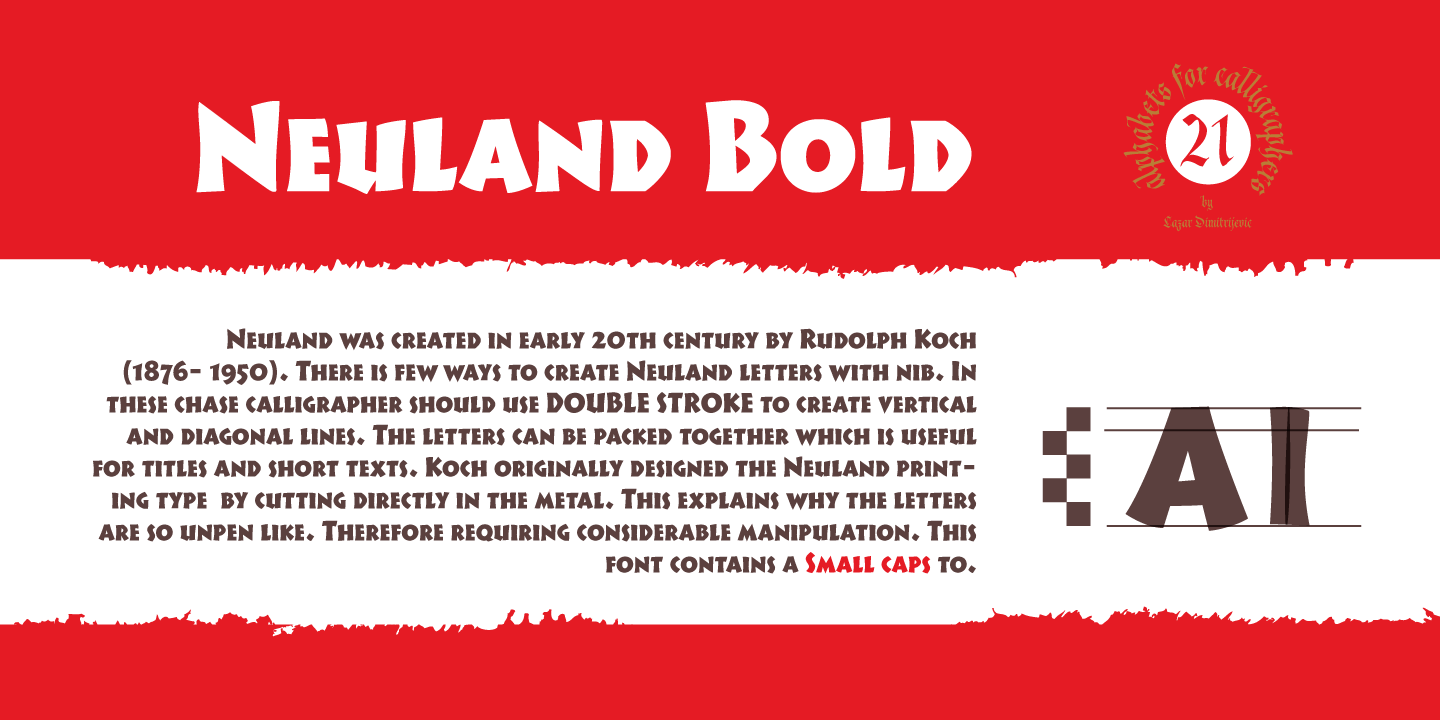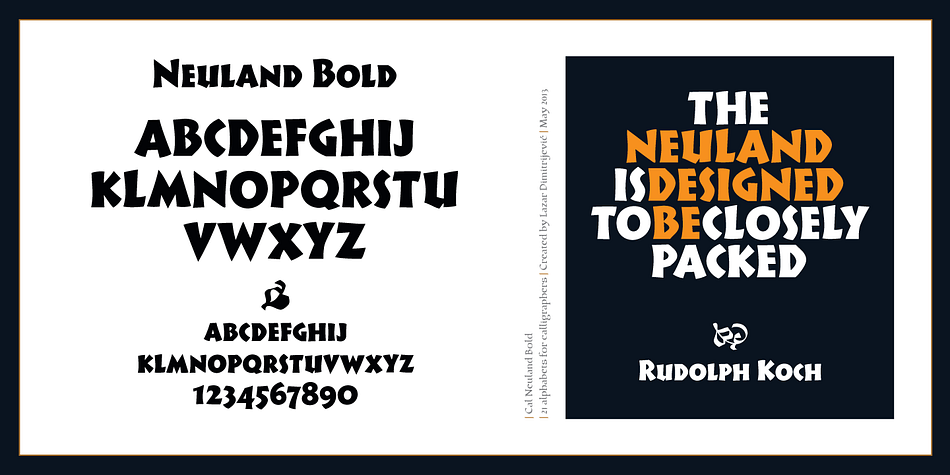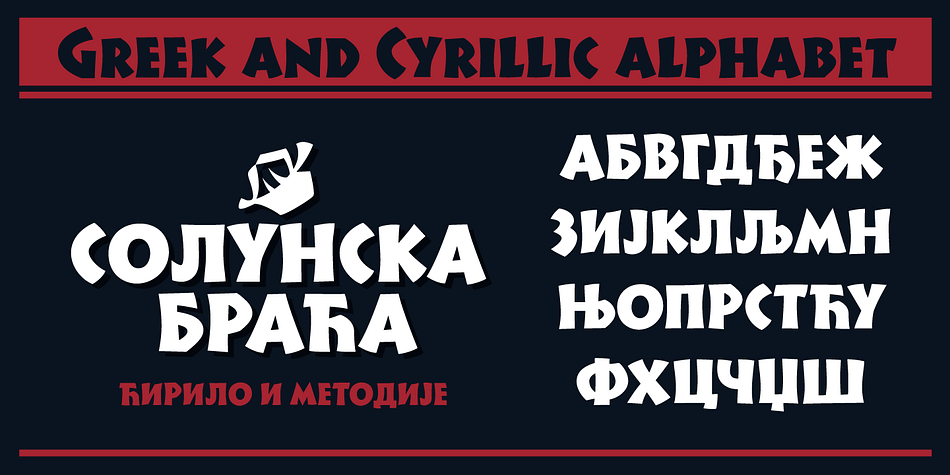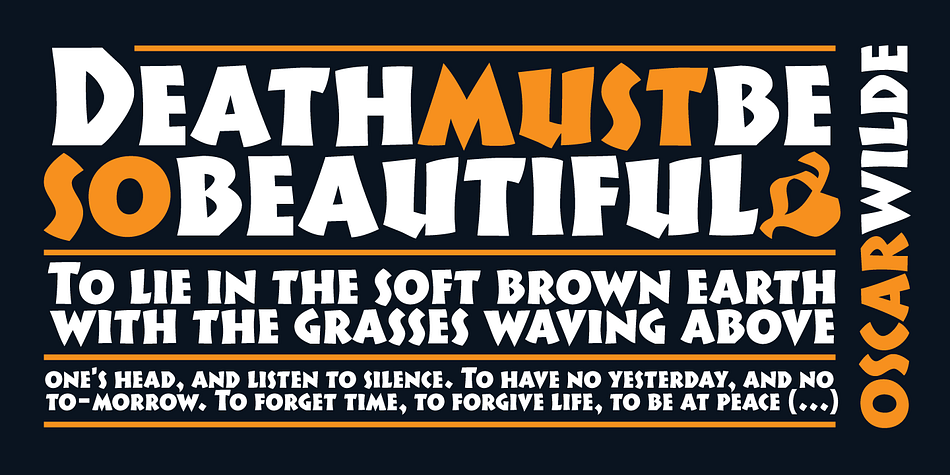
Cal Neuland Bold is a display sans font published by Posterizer KG.
Calligrapher Neuland Bold is one of the calligraphic group of fonts called “21 alphabets for Calligraphers“.
All graphemes are taken from calligraphic pages written on Neuland calligraphic style.
This font is ideal for calligraphic sketches or for imitation of ancient manuscripts. Contains all the Latin, Cyrillic and Greek glyphs.